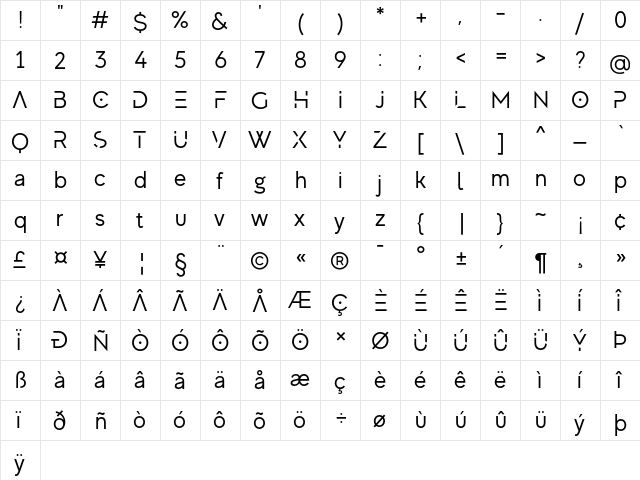
MADE Evolve Sans EVO Regular
| Foundry | MadeType |
| Designer | MadeType |
Design Context for MADE Evolve Sans EVO Typeface
MADE Evolve Sans EVO is a composed and adaptable typeface that performs quietly and consistently across a wide range of design contexts.